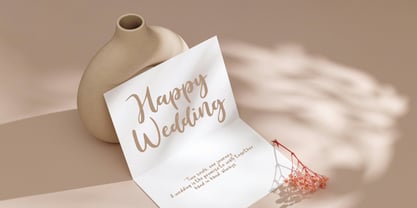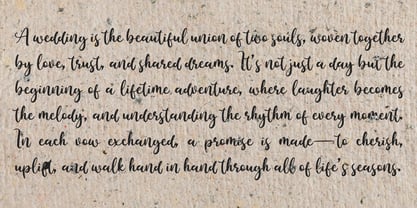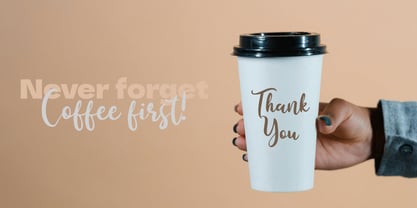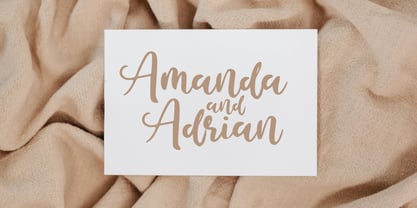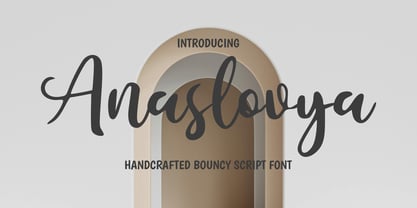
Anaslovsya
by Letterytz CalliType
The Anaslovsya Font Family was designed by Wahyu Eka Prasetya, Dian Angga Marytama and published by Letterytz CalliType. Anaslovsya contains 1 styles.
Anaslovya – Handcrafted Bouncy Script Font
Anaslovya is a charming and lively script font, perfect for adding a personal and artistic touch to your designs. Handcrafted with care, this font boasts a playful yet elegant feel, making it ideal for branding, wedding invitations, greeting cards, social media, and more.
With its smooth curves and natural flow, Anaslovya brings warmth and authenticity to any project. The bouncy baseline and organic strokes give it a friendly and welcoming look, while its refined letterforms ensure readability and versatility.
Features:
✔ Hand-lettered, organic script style
✔ Beautiful letter connections for a natural look
✔ Perfect for branding, logos, invitations, and product packaging
✔ Multilingual support
Let Anaslovya bring creativity and personality to your next design project!